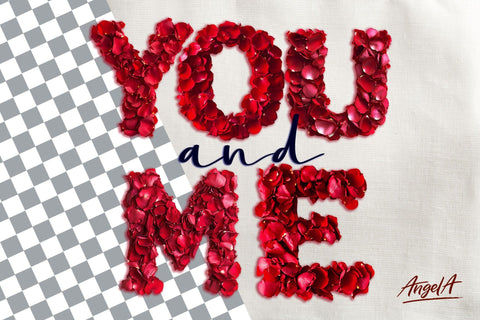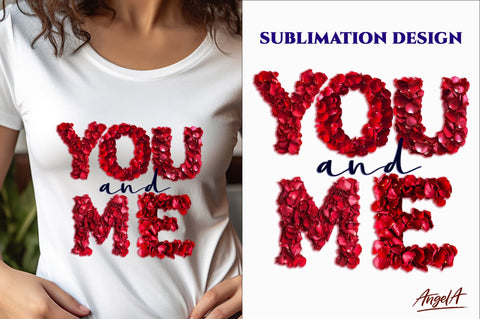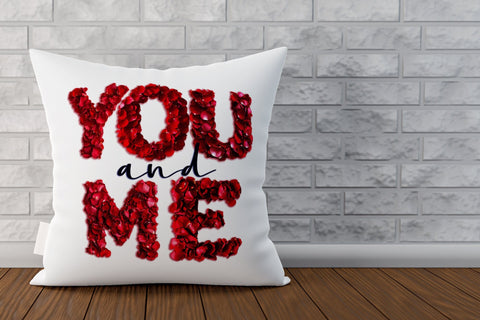
You and me Valentine quotes, rose petals PNG, valentine font
Valentine saying You and me is created of a valentine font, red rose petals. This valentine quote is perfect for Valentine's Day card, as T-shirt print design, pillow, mug sublimation design, as a gift for your loved!